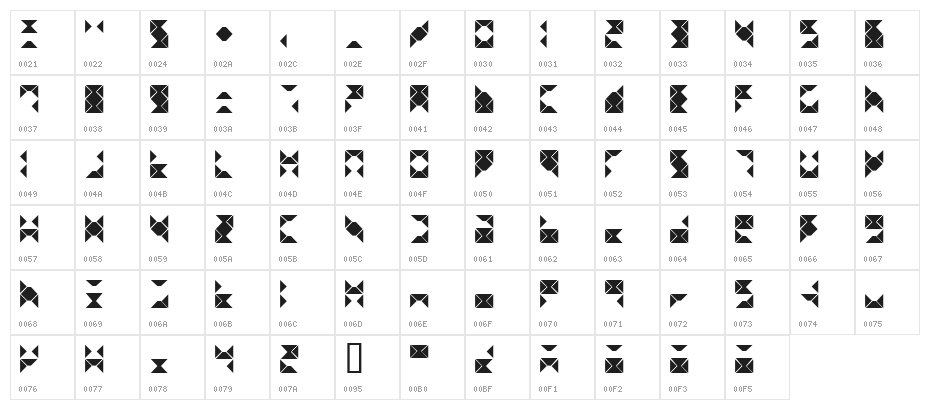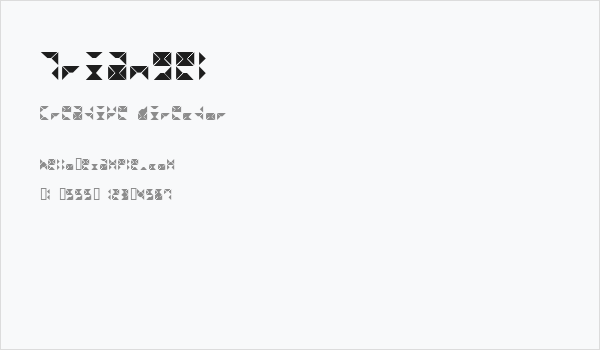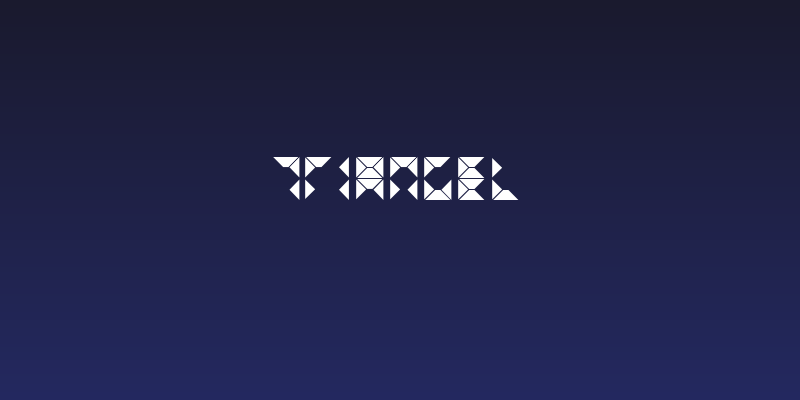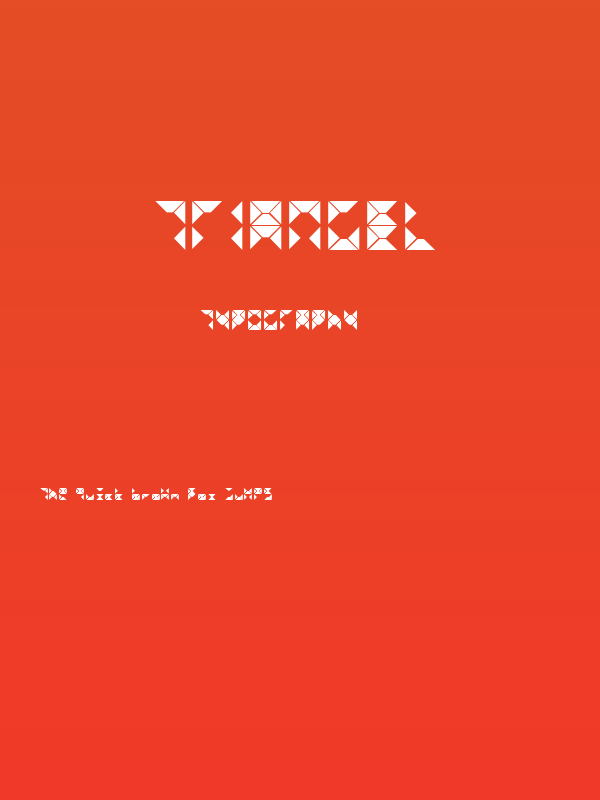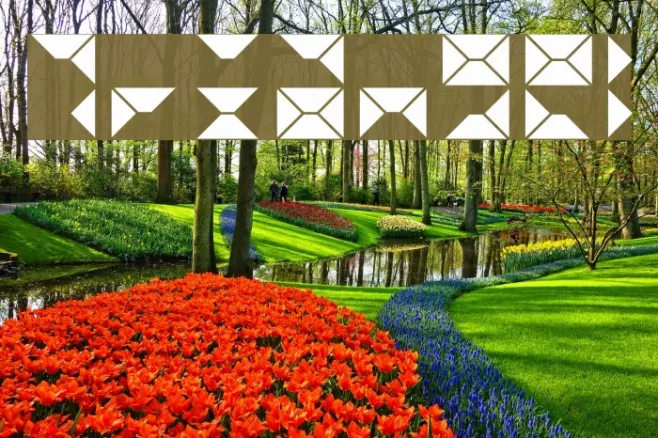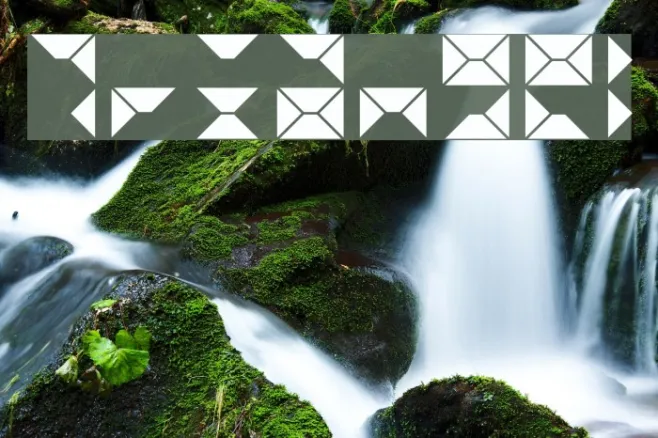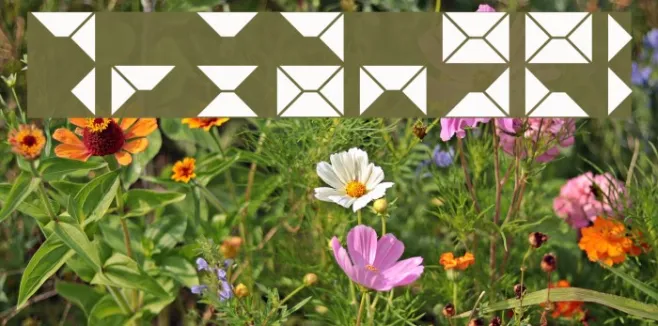
Triangel Font
Triangel Description
This font features a geometric and abstract design, characterized by the use of triangular shapes and sharp angles. Each character is constructed with a series of triangles and lines, creating a bold and striking appearance. The design is highly decorative, making it suitable for creative and artistic projects. The font's unique structure gives it a modern and avant-garde feel, while maintaining readability through its consistent geometric patterns. The use of negative space within the characters adds to its distinctiveness, making it stand out in any design context.
| Proposed Projects | Ideal for modern art projects, posters, album covers, and branding that requires a bold and unique aesthetic. |